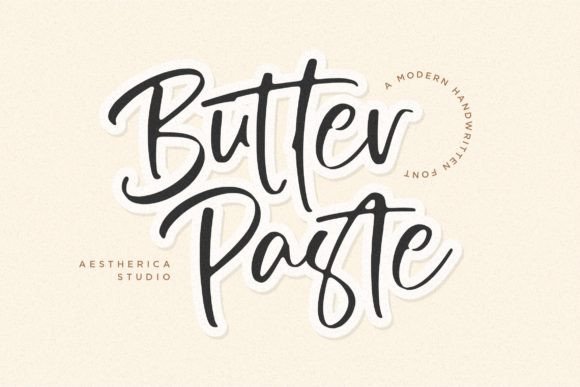
Behold, the Butter Paste Font — a script typeface that oozes charm and playfulness, designed to add a touch of whimsy to your creative endeavors. Crafted by the artistic hands at Aestherica Studio, this font exudes a handwritten flair that is both elegant and captivating.
Immerse yourself in a world of limitless possibilities with Butter Paste, the perfect font for those seeking a unique and expressive voice. Its flowing strokes and playful curves are reminiscent of a carefree summer's day, effortlessly adding a sense of joy and lightheartedness to your designs.
Whether you're a graphic designer seeking to create eye-catching logos and branding, a crafter yearning for distinctive greeting cards, or a fashion enthusiast looking to add personality to your t-shirts and cases, Butter Paste is your muse. Its versatility extends to posters, invitations, and any project that calls for a touch of whimsy.
With Butter Paste, you're not just downloading a font; you're embarking on a creative journey filled with endless opportunities to infuse your work with personality and charm. Let your imagination run wild as you explore the boundless possibilities that await you.
Don't settle for ordinary fonts that blend into the background. Choose Butter Paste, the script font that dances off the page, captivating your audience with its playful spirit and undeniable charm. Join the creative revolution and redefine the boundaries of self-expression today.